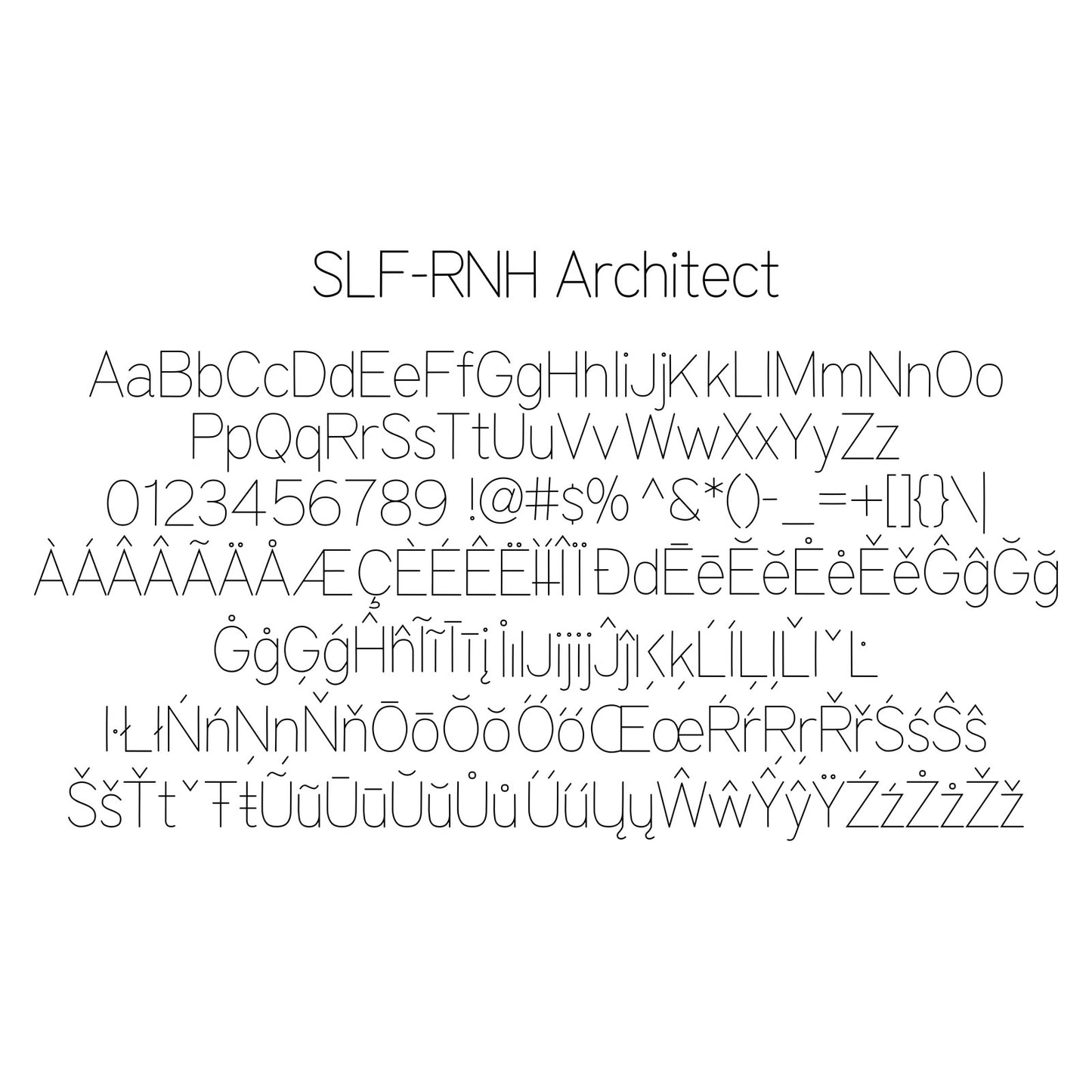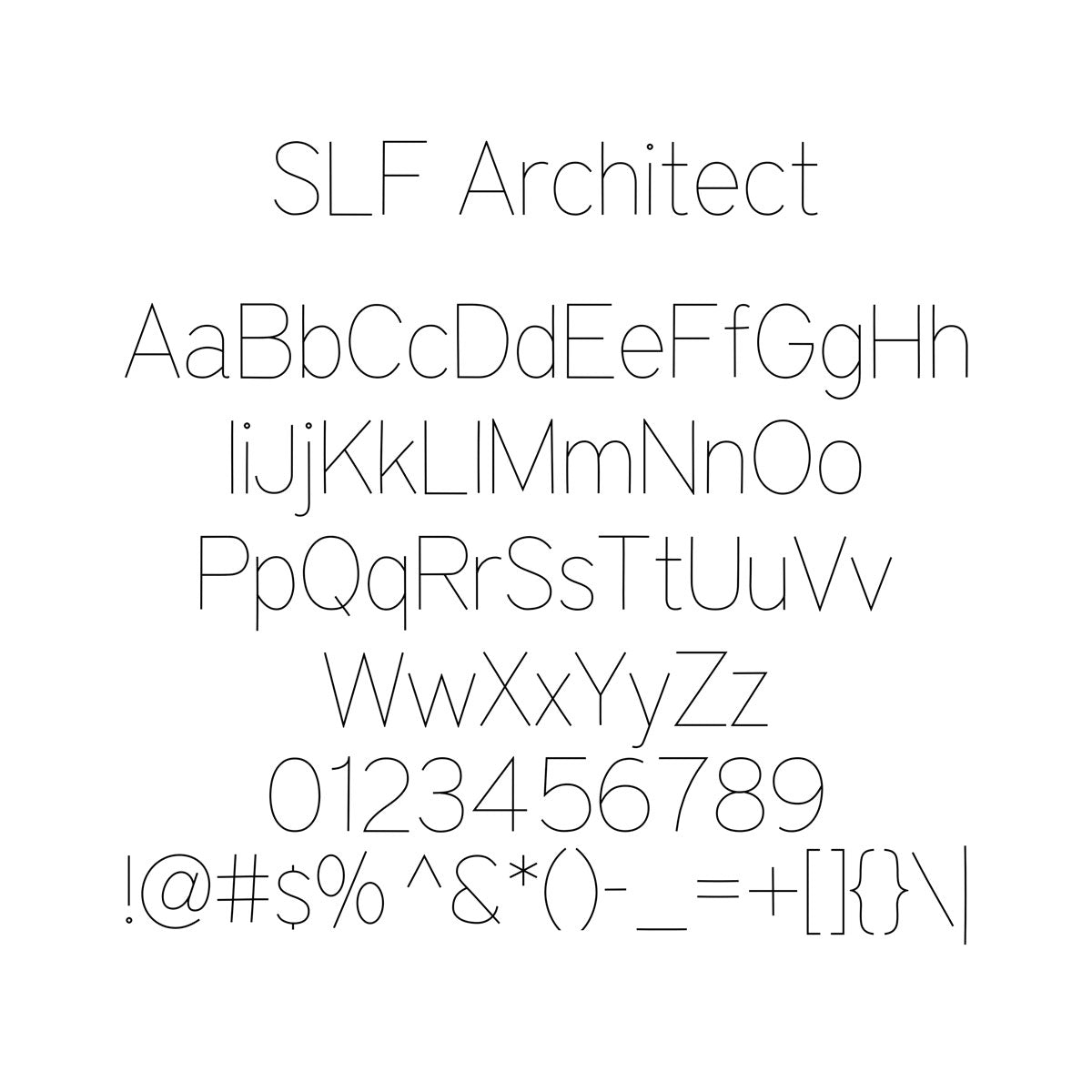
Rhino Single Line Engraving Font - "Architect"
Architect typeface is our first font to be released for use in Rhino 3D software. Finally, you can use true single-line fonts to make your job faster and easier.
- True type, open path lettering using Rhino's "Allow single stroke fonts" check box
- San serif lettering style
- Clean lines, smooth curves, close join points, and precise lettering alignment